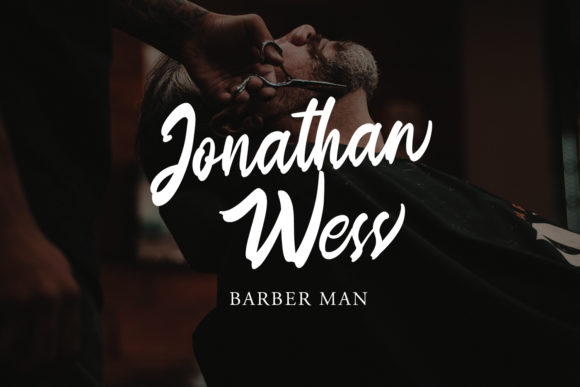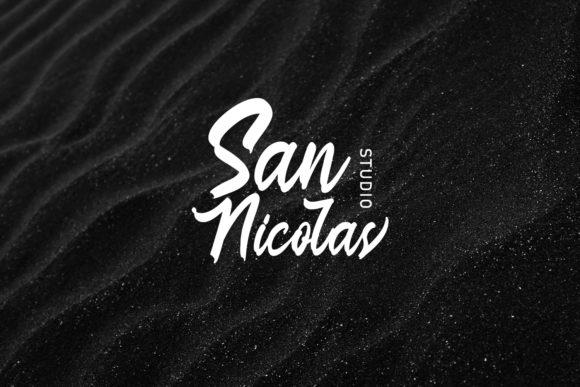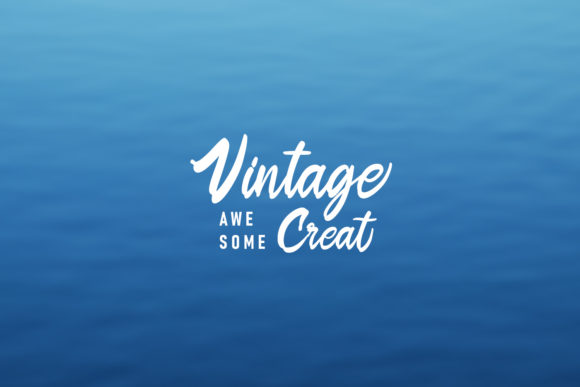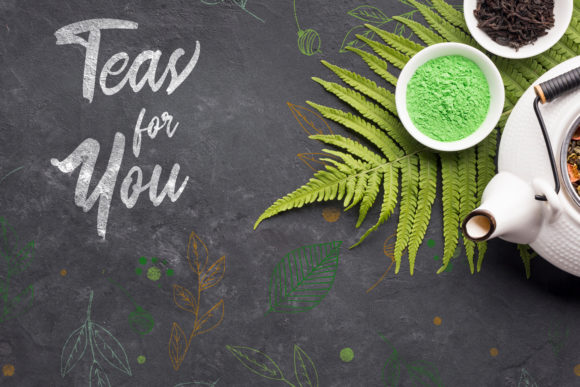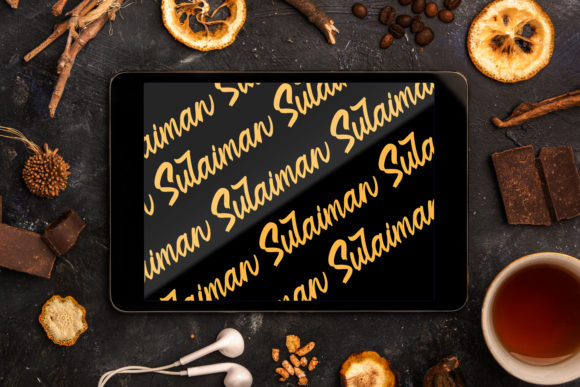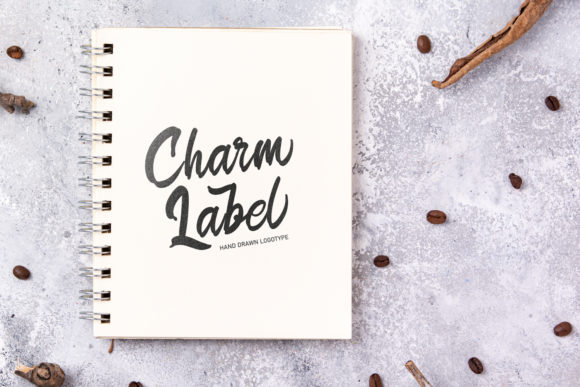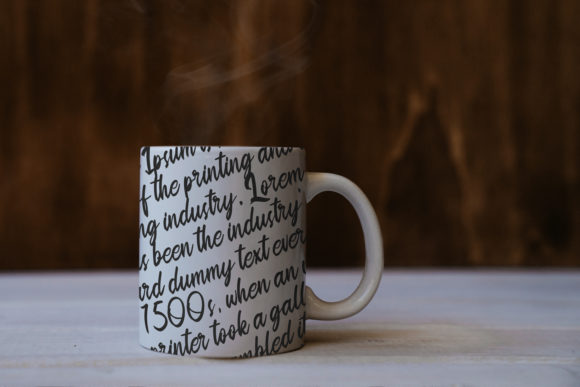
Sulaiman Font
About Sulaiman Font
Sulaiman feels equally charming and elegant. This stunning handwritten font is a stylish homage to classic calligraphy. It features a varying baseline, smooth lines, gorgeous glyphs and stunning alternates.